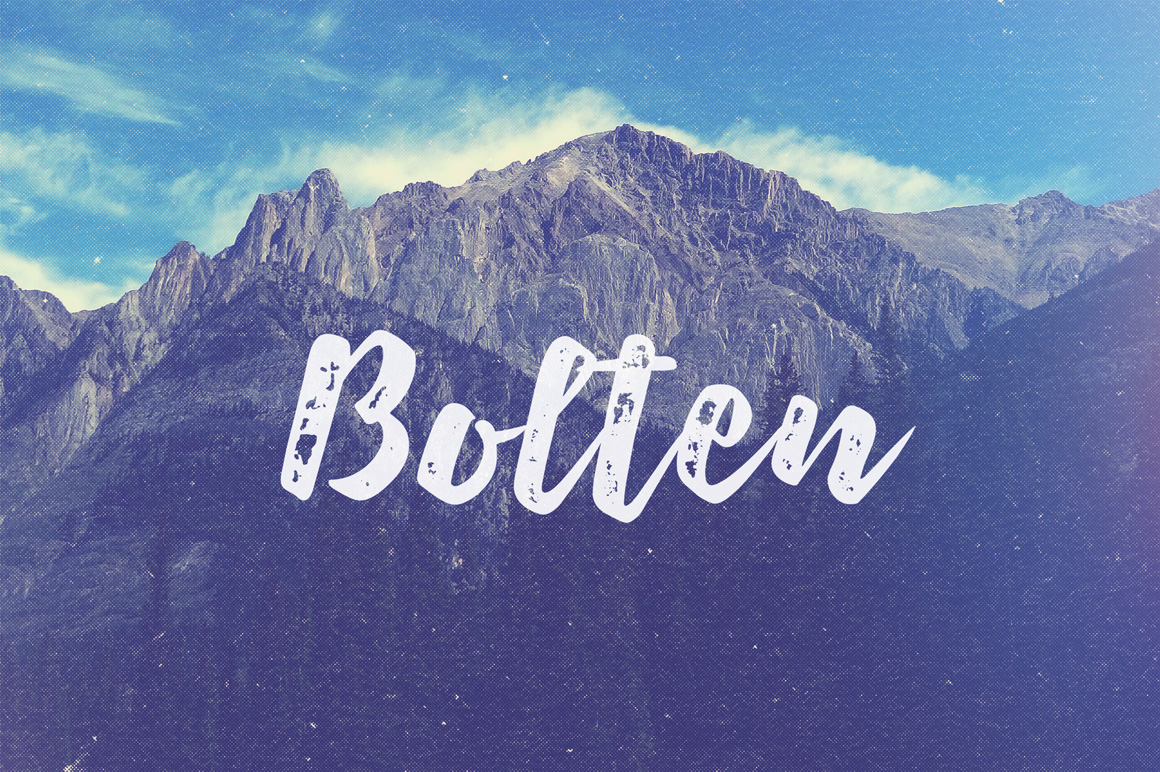
Bolten Typeface
We’re happy to welcome Bolten Typeface; bold and vintage brush-letteredfonts to give personal touches on your designs. Bolden Typeface comes up in two styles: Regular and Rough. You can choose which one that fits in any designs you’re currently working on; signage, poster, t-shirt design, etc.
This font is free demo version and has only Regular style, if you love this font, feel free to check out the full Bolten Typeface. Comes up with Rough style which is have the rough texture that captures the look of letterpress printing.